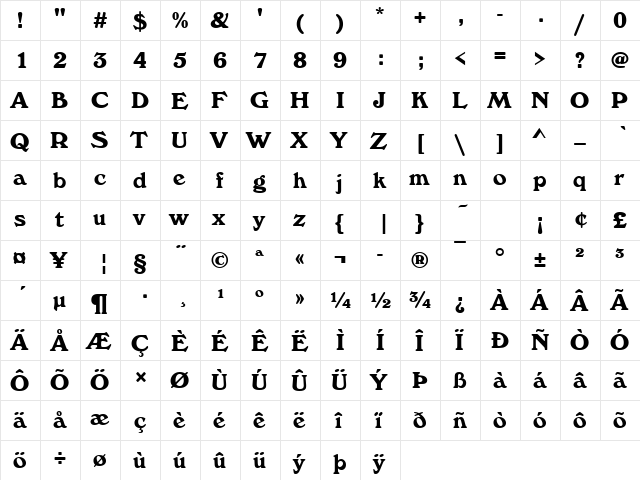
WindsorD Bold
Design Context for WindsorD Typeface
WindsorD offers clean, dependable letterforms without strong stylistic allegiance, making it a practical choice for designers who need flexibility. Its bold stroke weight gives it real presence on the page.